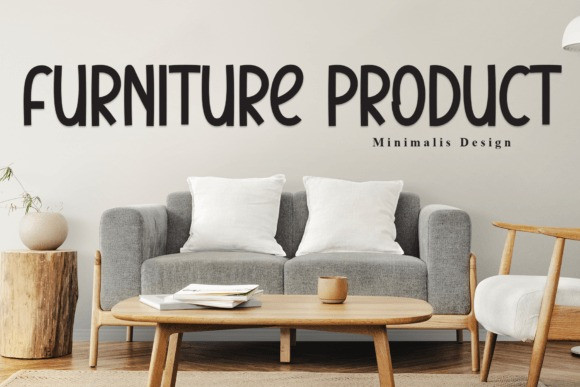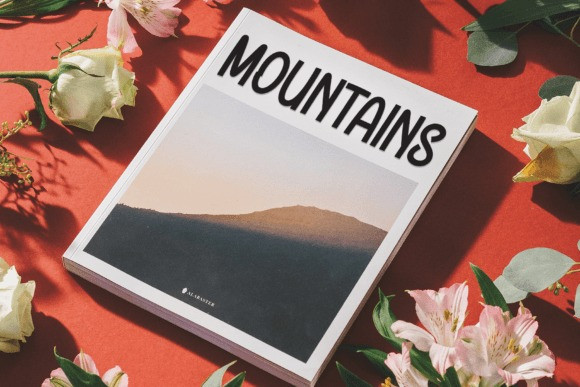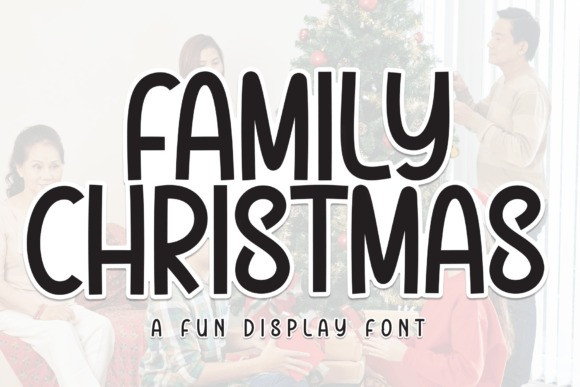
Family Christmas Playful Font
Family Christmas Playful Font, the ultimate festive display font that brings joy and warmth to your holiday designs. With playful letterforms and a touch of whimsy, this font captures the spirit of togetherness and celebration. Perfect for holiday cards, party invitations, or any Christmas-themed project, Family Christmas adds a cheerful and inviting flair to your typography. Spread the festive cheer with this fun and festive font that feels like a holiday hug for your designs.